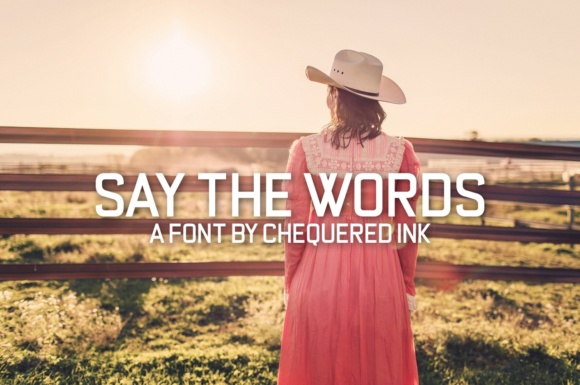
Say the Words Font
Dive into the world of Say the Words Font, a captivating sans-serif typeface that commands attention with its bold, blocky strokes and all-caps design. Crafted by the skilled hands of Chequered Ink, this font exudes a striking presence that demands to be noticed.
Unleash your creativity and watch your words come to life with Say the Words. Its clean lines and geometric shapes create a modern, minimalist aesthetic that elevates any design project. Whether you're crafting logos, posters, social media graphics, or eye-catching headlines, Say the Words will add an unforgettable touch of sophistication and style.
Immerse yourself in the versatility of Say the Words. Its all-caps design lends itself to a wide range of applications, from bold headlines that grab attention to elegant body text that captivates readers. Experiment with different colors, sizes, and effects to create a visual feast that resonates with your audience.
With Say the Words, you'll discover a font that speaks volumes. Its strong, confident strokes convey a sense of authority and power, while its clean lines and minimalist design exude a timeless elegance. Whether you're a seasoned designer or just starting out, Say the Words is the perfect font to elevate your creative projects and leave a lasting impression.